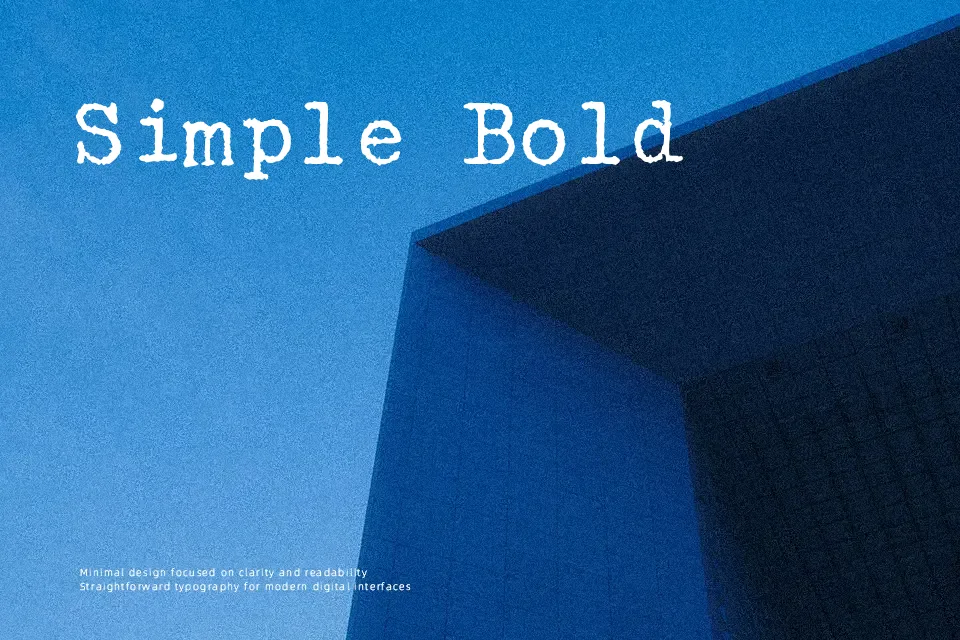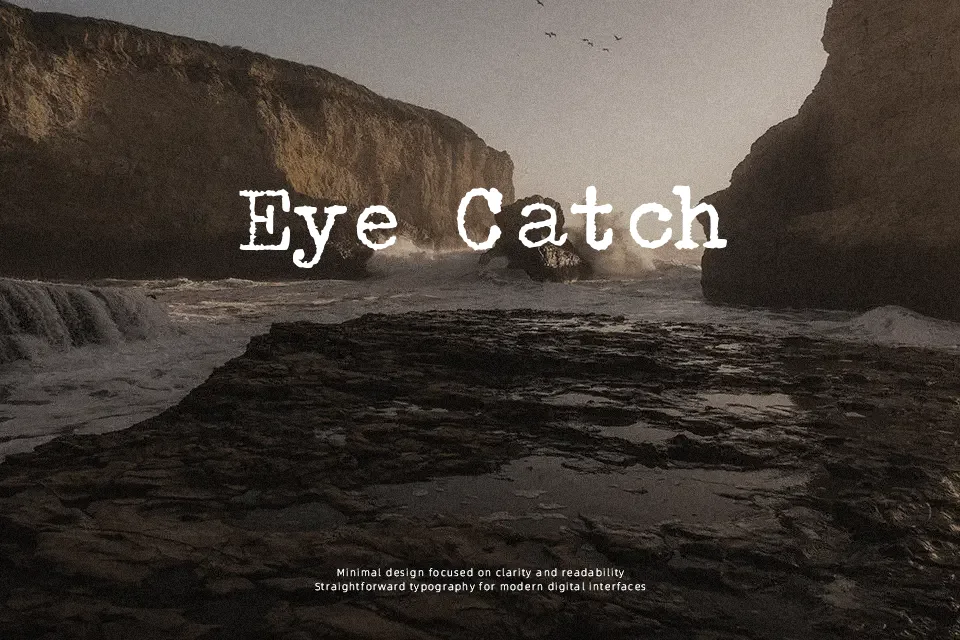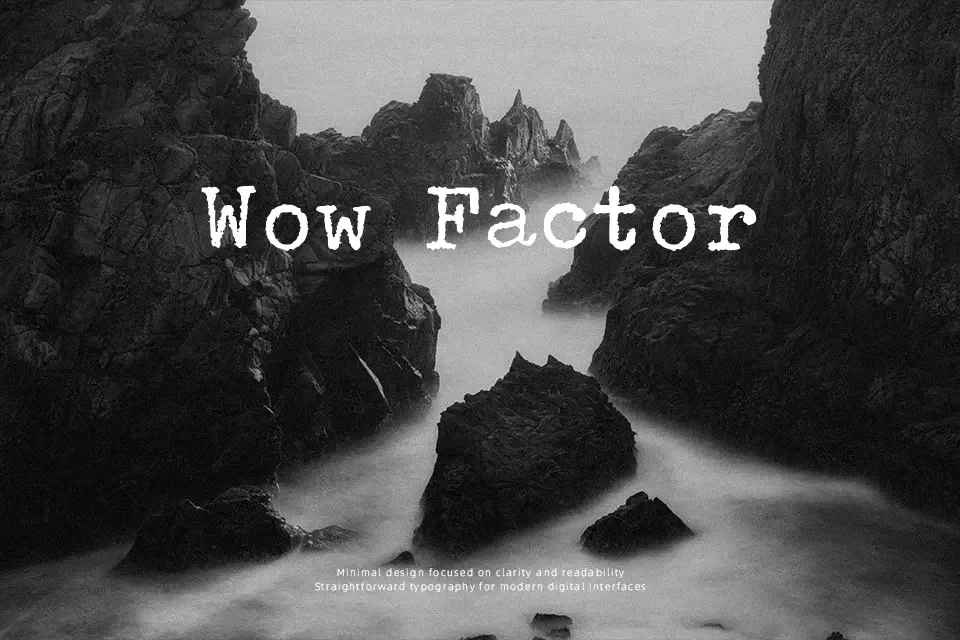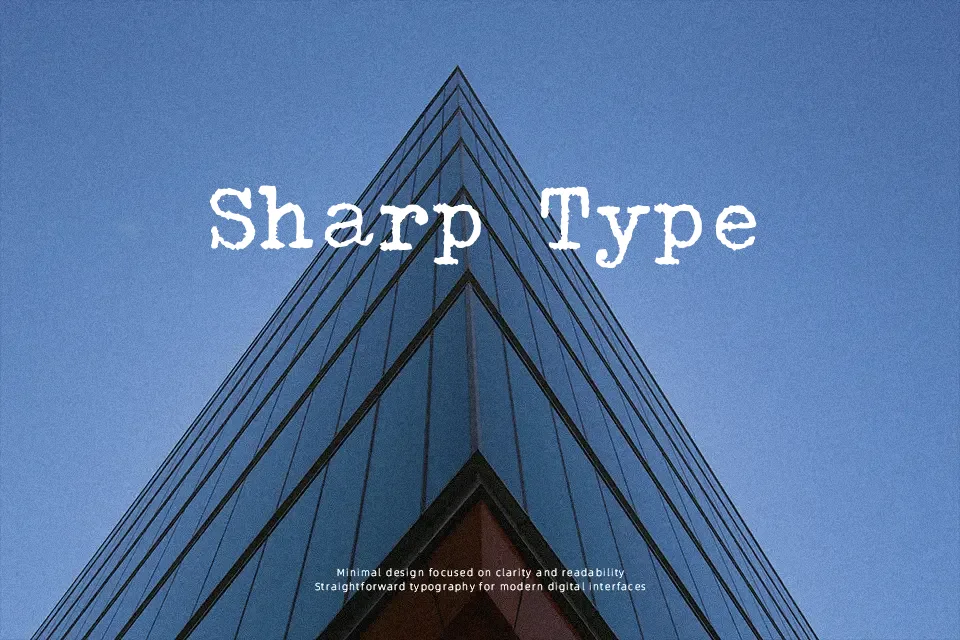
Underwood 319 Font
Designed by Julien Gagne
Underwood 319 Font captures the tactile rhythm of mechanical key strikes through slab serif forms, uneven baseline alignment, and stamped ribbon textures. Its monospaced structure maintains predictable horizontal tracking, yet the deliberately wavering baseline injects raw authenticity into headline compositions, retro posters, and theatrical props. Sturdy letterforms and balanced stroke weight preserve strong legibility across medium display sizes, though irregular vertical spacing and heavy mechanical ink spread render the typeface less suitable for small captions or continuous long-form editorial reading. The overall design offers an exceptionally convincing retro typewriter aesthetic for specialized display work.
Best For: retro book covers, vintage document props, historical themed posters, indie film titles
Not Ideal For: continuous reading, mobile user interfaces, spreadsheet data, formal corporate identity
Perfect for editorial, film, and headline, with a classic and display style.